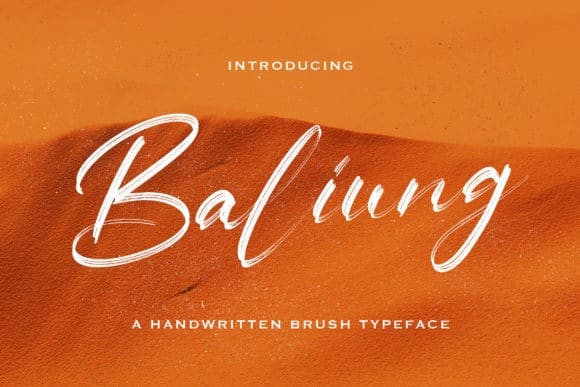
Baliung Brush Font
Baliung Brush Font is a playful handwritten brush font combined with some swashes and natural writing so you can play and create something awesome.
Baliung is designed and shared by StringLabs. This font is a flowing handwritten font, described by an elegant touch, perfect for your favorite projects. Fall in love with its incredibly distinct and timeless style and use it to create spectacular designs!